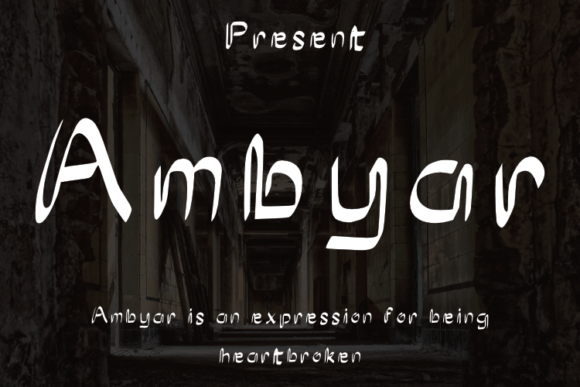
The Perfect Combination of Elegance and Modernity: Ambyar Font
As designers, we’ve all been there – staring at a blank canvas, waiting for the perfect font to strike inspiration. For some, it’s the classic serif, while for others, it’s the sleek sans serif. And then, there’s the moment when you stumble upon something that makes your heart skip a beat – a font that’s both elegant and modern, perfect for creating an unforgettable impression.
Enter the Ambyar Font, a stunning Sans Serif typeface designed to elevate your designs to new heights. Whether you’re crafting a luxurious logo, a captivating book title, or a fashion brand’s identity, Ambyar Font is the perfect companion. Its unique style and modern look make it an invaluable asset for designers, allowing them to create visually stunning pieces that leave a lasting impression.
Key Features of Ambyar Font
- Unique Characteristics: The Ambyar Font features a unique blend of modern and traditional elements, with a distinctive x-height and subtle flair to the letterforms.
- Font Style: The Ambyar Font is available in both Regular and Bold styles, providing designers with flexibility and versatility in their design choices.
Ambyar Font Review
I recently had the chance to work with the Ambyar font, and I must say it’s a mixed bag. While it has some great qualities, there are also some limitations that might make it less appealing to some designers.
- Unique character set: Ambyar font has a distinctive and quirky character set that can add a lot of personality to your designs.
- Good for display use: The font is well-suited for headings, titles, and other display text where you want to make a statement.
- Customizable: Ambyar font is highly customizable, with options for adjusting letter spacing, line height, and other parameters.
- Limited legibility: While the font is great for display use, it can be quite difficult to read at smaller sizes or in body text.
- Lack of consistency: The font’s unique character set can sometimes feel inconsistent or even chaotic, which can be jarring for some users.
- Not suitable for long text: Ambyar font is best used in short, punchy text blocks, as it can become overwhelming when used for longer passages.
Overall, I’d say Ambyar font is a great choice for designers who want to add a touch of personality to their projects, but it’s not a one-size-fits-all solution. With careful use and consideration of its limitations, Ambyar can be a valuable addition to your design toolkit.
Getting the Most Out of Ambyar Font
To get the most out of Ambyar font, use it for titles and headings to add a touch of elegance and sophistication to your designs. You can also use it for body text if you want a more modern and clean look.
Ambyar font is ideal for use in logos, branding materials, and digital designs. It’s also great for use in resumes, business cards, and other professional documents where a touch of sophistication is needed.
Alternatives to Ambyar Font
Ambyar Font is a unique, handwritten font used for various design purposes. Here are a few alternatives that designers can consider:
Great Vibes Font is a beautiful, handwritten script font ideal for creative projects such as invitations, quotes, and social media graphics. It has a similar feel to Ambyar Font but with a more elegant and refined touch.
Comparison to Ambyar Font: Great Vibes Font is more polished and sophisticated, making it suitable for high-end designs.